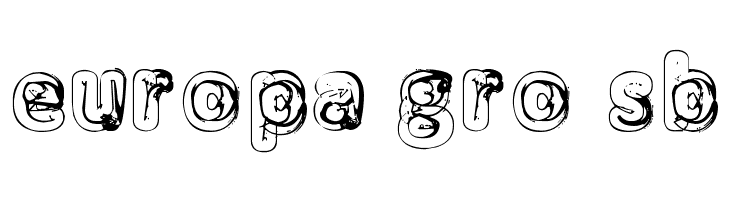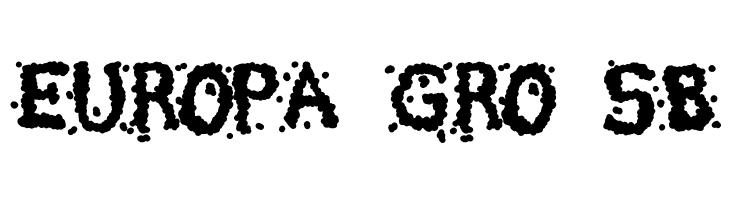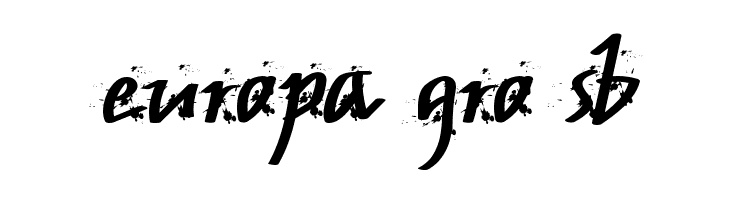
• Celestial Chunder
( Font Monkey - www.fontmonkey.com )
A bold, textured font with a playful, handcrafted appearance.
• JP Urbaam DEMO Grunge
( LJ Design Studios - www.ljdesignstudios.com )
A bold, grunge-inspired font with a distressed and edgy appearance.
• 7 Dingbat Slats LT
( LadyTimeless - graphxgonewild.com/ )
A collection of geometric shapes with a striped, slatted design.
• JUMP BURN IP 2012
( Poemhaiku - behance.net/poemhaiku )
A bold, distressed font with a rough, textured appearance.
• Atonement DEMO Regular
• Spray.ME Regular
A bold, graffiti-inspired font with a spray paint effect.
• Manenschijn_02
A bold, grunge-style font with ink-like textures and playful outlines.
• Vtks Simplizinha
A bold, expressive font with a hand-painted, artistic style.
• vtks lightness 2
A bold, distressed font with a grungy, textured style.
• Vtks Stress
An expressive, brush-style font with dramatic strokes and a graffiti-like appearance.